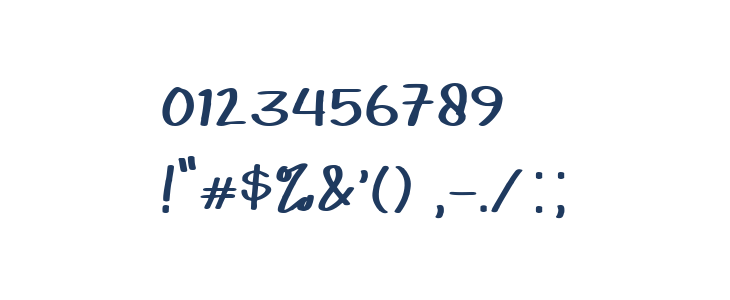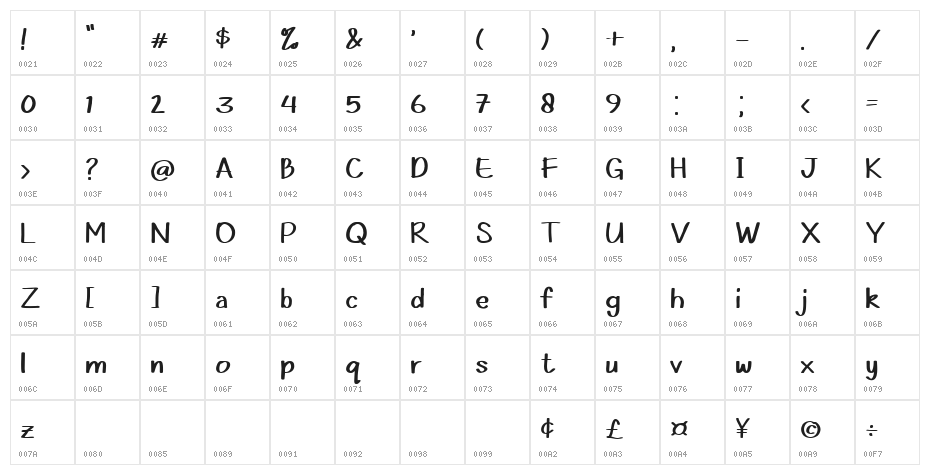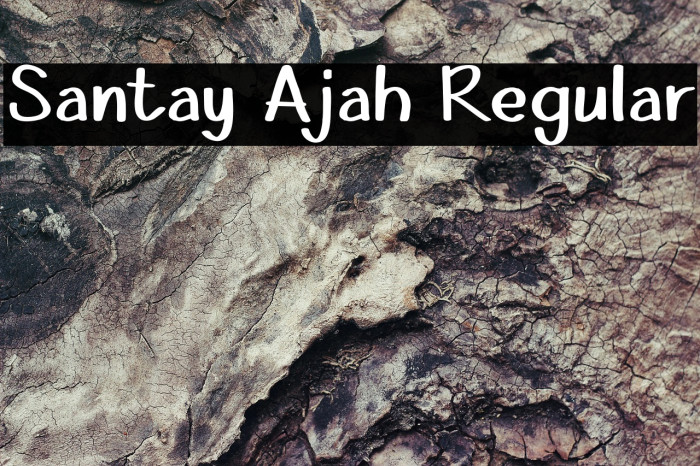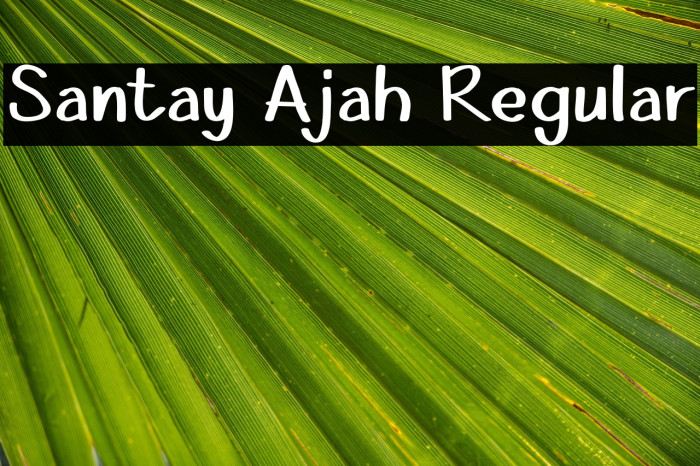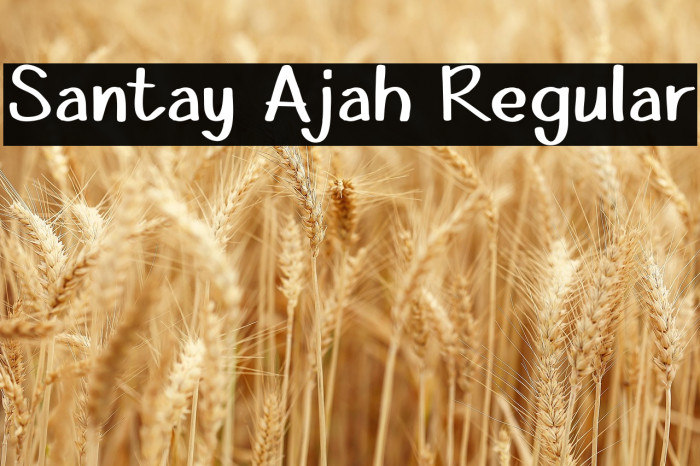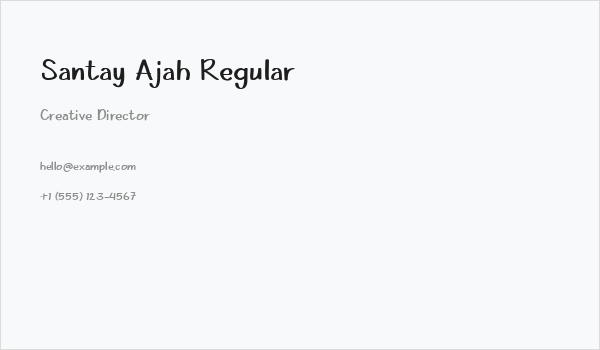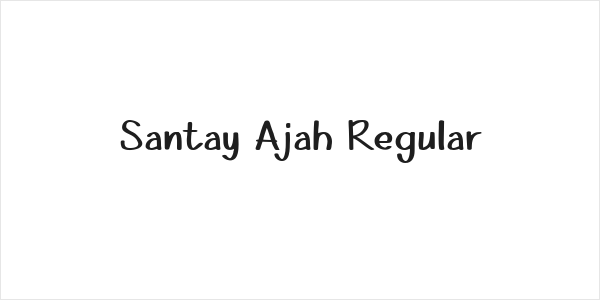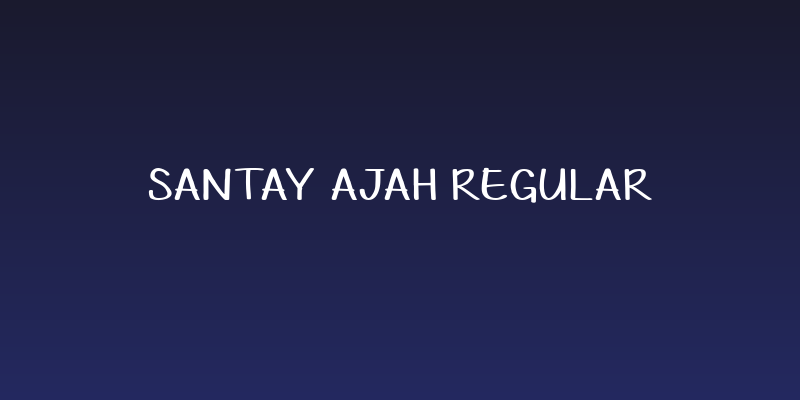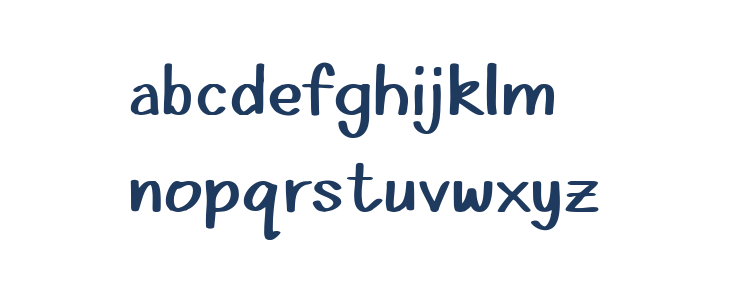
Santay Ajah Regular Font
Santay Ajah Regular Description
This font features a playful and casual handwritten style, characterized by its smooth curves and slightly irregular strokes that give it a friendly and approachable appearance. The uppercase letters are bold and rounded, while the lowercase letters maintain a consistent flow with a slight slant, enhancing its informal charm. The numbers are clear and easy to read, matching the overall style of the alphabet. Special characters are well-integrated, maintaining the font's cohesive look. This font is versatile, suitable for projects that require a personal touch or a relaxed vibe.